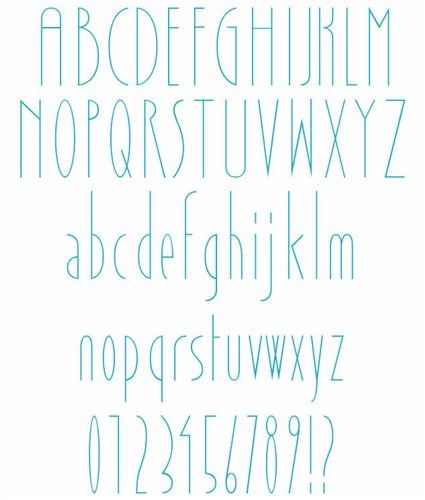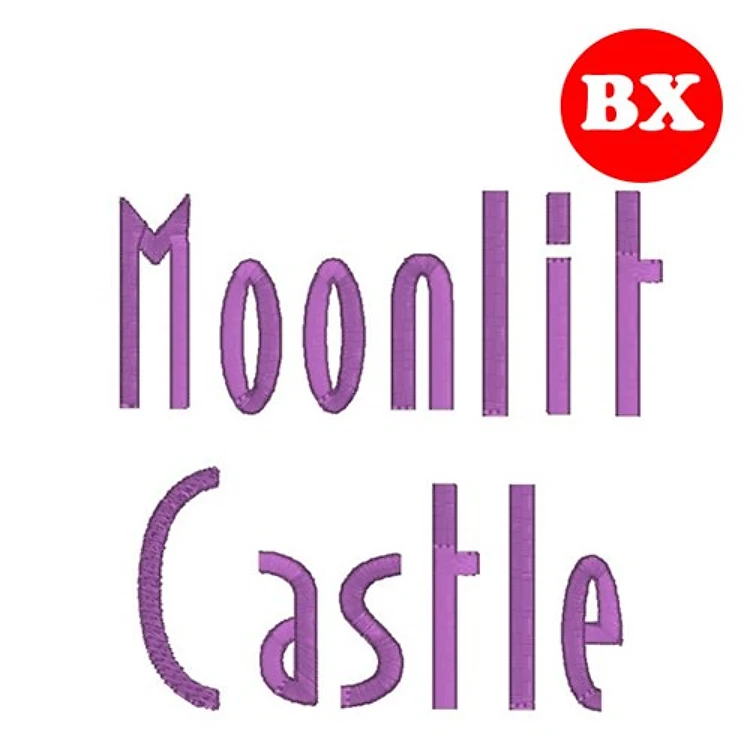
Moonlit Castle Embrilliance Embroidery Font - Bold Stylized Lettering - BX font by Unicorn Creatives and other embroidery fonts available at EmbroideryDesigns.com.
Unicorn Creatives is happy to present Moonlit Castle Embrilliance Embroidery Font - Bold Stylized Lettering - BX font machine embroidery font which has Bold and playful machine embroidery font, ideal for adding charm to blankets or wall hangings. Stacked vertically, it showcases filled letters in a soft purple texture. Available in BX font, Embrilliance, and other formats. included. If you would like to view more embroidery fonts and alphabets please search our embroidery fonts page.